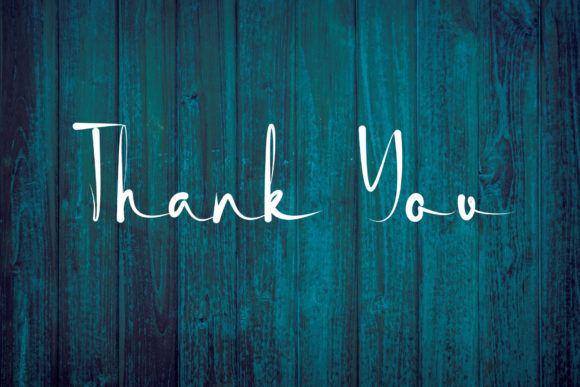
Introduction to New Design Font Font
Fonts play a crucial role in design, and the New Design Font font is a typeface that brings both character and versatility to any project. Whether you’re working on a branding project, a website, or a print design, the New Design Font font offers a unique style that can elevate your work.
New Design is a stylish and delicate handwritten font.
It has a clean, thin and smooth vibe and it will be a hit for any design that you want to add it to .
Key Features of New Design Font Font
Why Choose New Design Font Font?
The New Design Font font is more than just a typeface – it’s a design tool that helps you communicate your message with style and clarity. Its unique character set and versatile design make it suitable for a wide range of applications, from elegant invitations to bold headlines.
With its carefully crafted letterforms and balanced proportions, the New Design Font font ensures readability and visual appeal across all mediums.
What makes New Design Font font special?
The New Design Font font stands out with its unique design, exceptional readability, and versatility across various design applications.